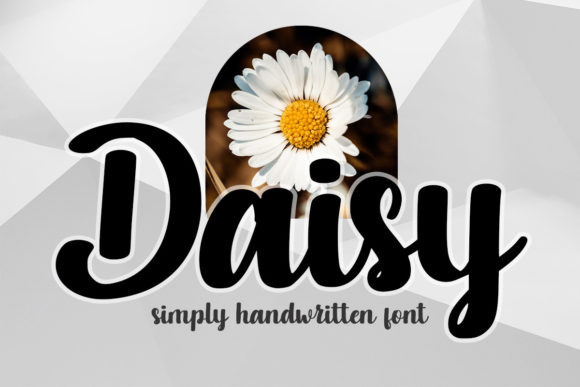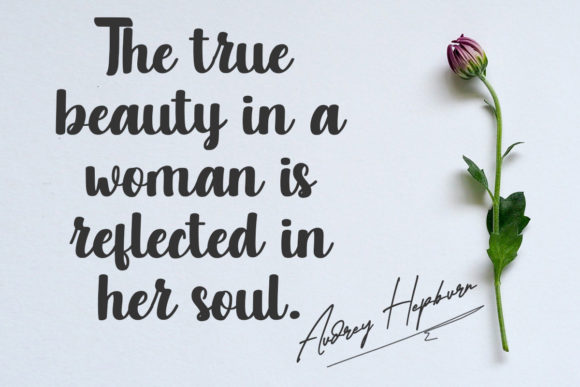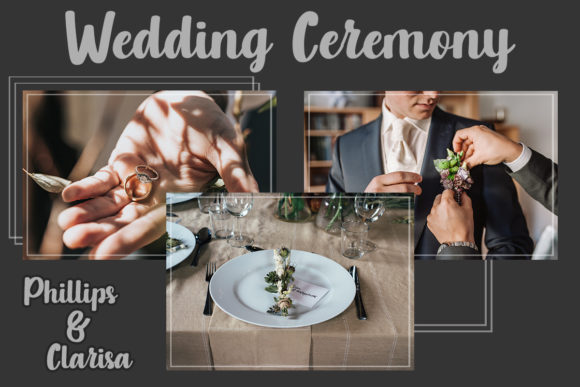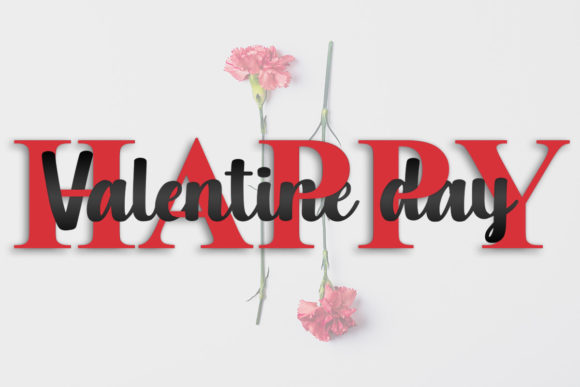
Daisy Font
About Daisy Font
Daisy is a script font characterized by bold and cute shapes, featuring a simple and elegant style along with glyph ligatures. This versatile font offers a range of possibilities for various design applications, allowing you to enhance your creative projects with its simplicity and boldness.
The bold and cute shapes of Daisy make it a standout choice for designs that require a playful and eye-catching aesthetic. Whether used in branding, headlines, or any project that demands a bold and fun look, this font brings a cheerful and vibrant quality.
The simple and elegant style of Daisy adds a touch of sophistication to its boldness. This makes the font adaptable to different design contexts, allowing it to convey both a bold statement and a sense of refinement.
The inclusion of glyph ligatures in Daisy enhances its versatility, providing unique character combinations that contribute to a more seamless and attractive overall appearance. This feature allows you to explore various design possibilities and customize your creations with ease.
You can incorporate Daisy into a wide range of design projects, from logos to promotional materials, as its simplicity and boldness make it suitable for diverse applications. Its ability to make a strong visual impact while maintaining an elegant demeanor adds to its appeal.
In summary, Daisy is more than just a font; it’s a versatile script font with bold and cute shapes that can elevate your designs. Whether used for branding, headlines, or other creative endeavors, Daisy’s simplicity, boldness, and elegant style make it a valuable design tool that brings both fun and sophistication to your projects.